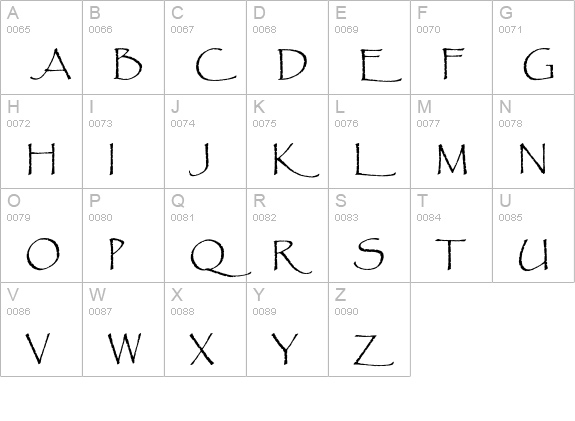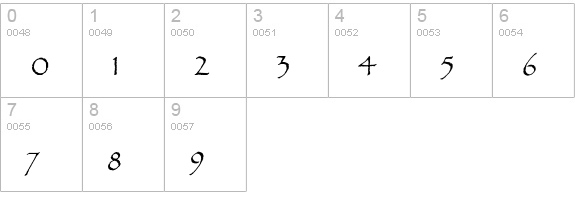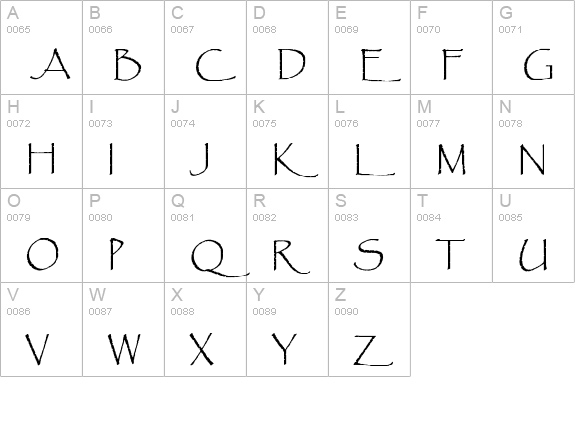
PapyrusEF-Alternates Font Details
PapyrusEF-Alternates is a stunning and versatile font that adds a touch of elegance and uniqueness to any design project. With its intricate and fluid letterforms, this font exudes a sense of creativity and sophistication. The beauty of PapyrusEF-Alternates lies in its alternative characters, which provide endless possibilities for customization and personalization. Each letter has multiple variations, allowing you to create captivating and eye-catching typography that stands out from the crowd. Whether you're designing a logo, creating a poster, or crafting a wedding invitation, PapyrusEF-Alternates is the perfect choice to add a touch of charm and style. Its smooth curves and delicate details give your designs a refined and polished look, while still maintaining a sense of playfulness. What sets PapyrusEF-Alternates apart is that it is available for free download at FontsMarket.com. This means that you can easily access and use this exquisite font in your projects without any financial constraints. Whether you're a professional designer or a hobbyist, PapyrusEF-Alternates offers you the opportunity to elevate your designs without breaking the bank. So why wait? Embrace the beauty and versatility of PapyrusEF-Alternates and let your creativity soar. Download this font for free at FontsMarket.com and unlock a world of endless design possibilities.